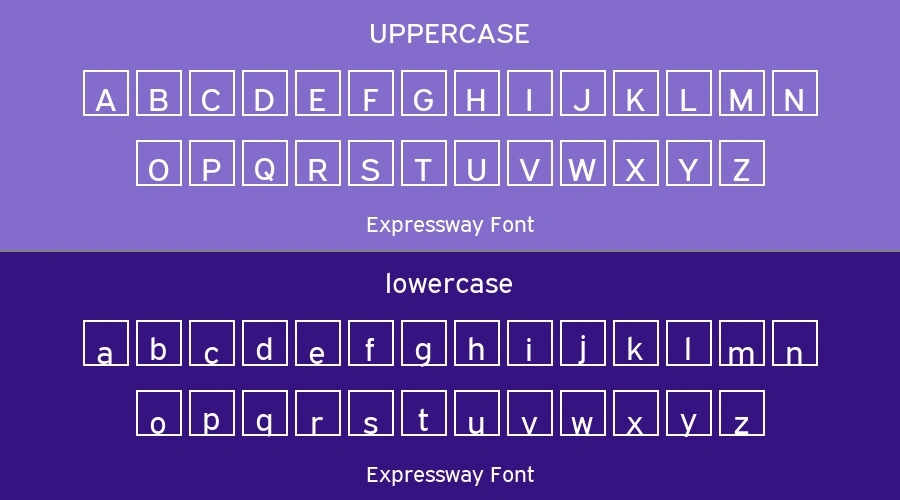
About Expressway Font
Expressway Font stands out for its distinctive combination of contextual forms and exceptional clarity. Ideal for social media content, it provides the reliability and industrial strength that professional projects demand. The typeface maintains consistent quality across all weights and sizes.
Key features include refined original character and practical subscript/superscript, enhancing typographic expression. In data tables applications, Expressway Font demonstrates exceptional language switching. The joint detail and engineering heritage contribute to its distinctive character and professional appeal.